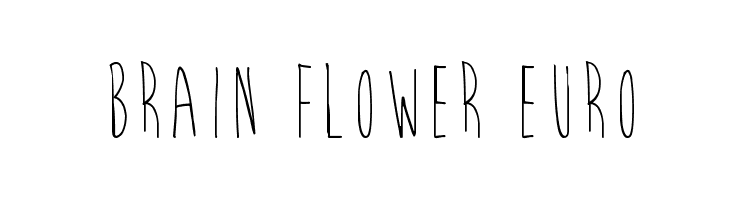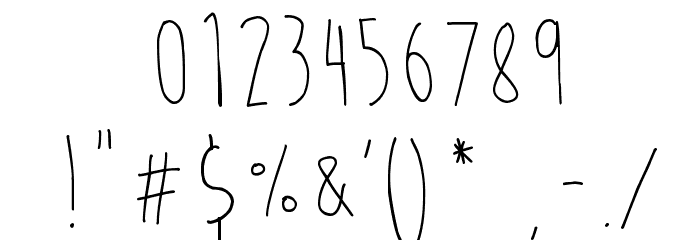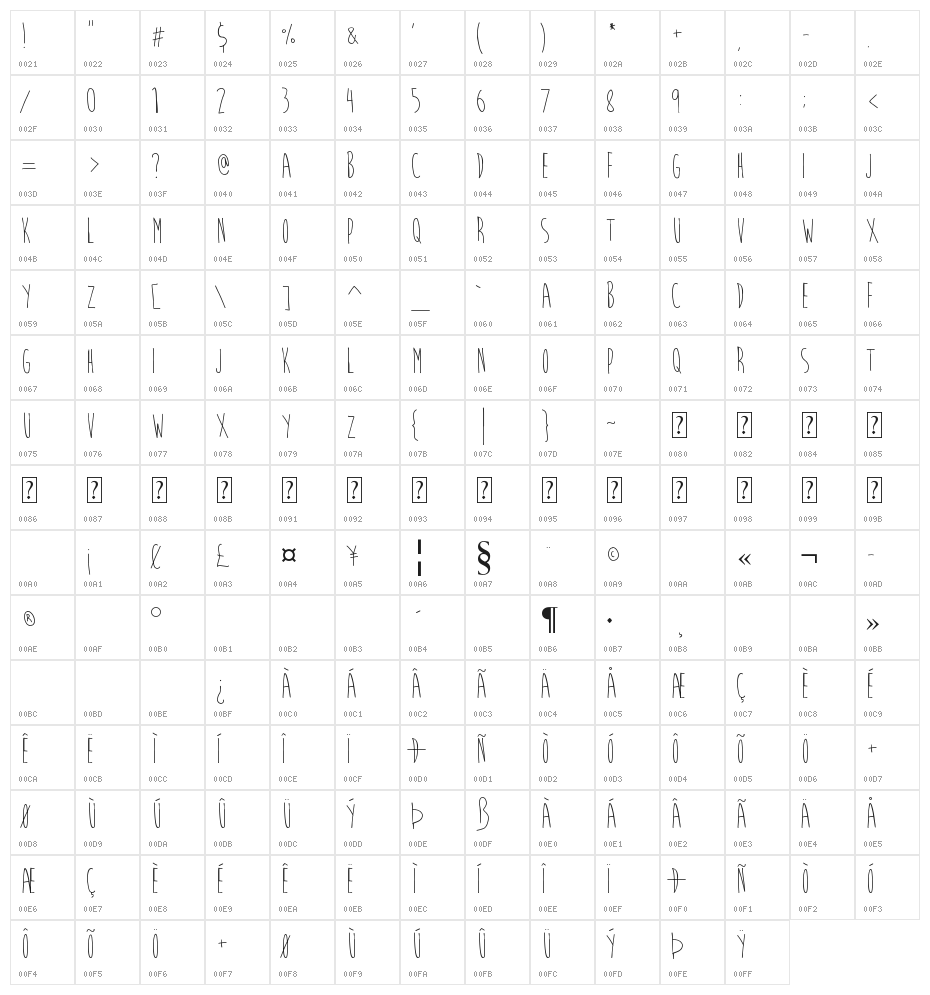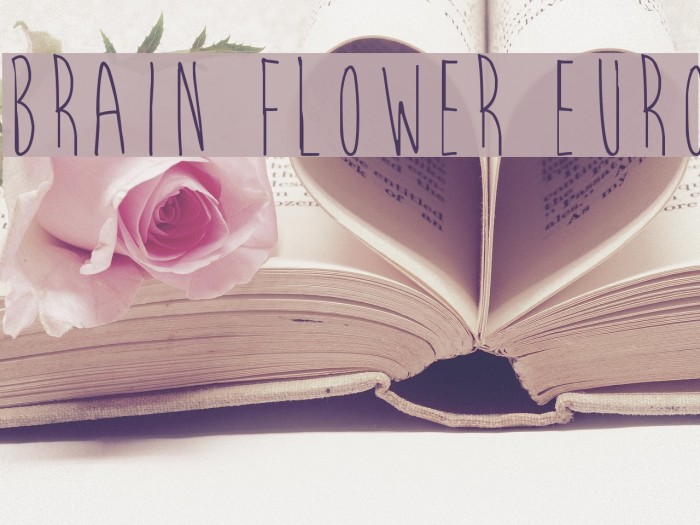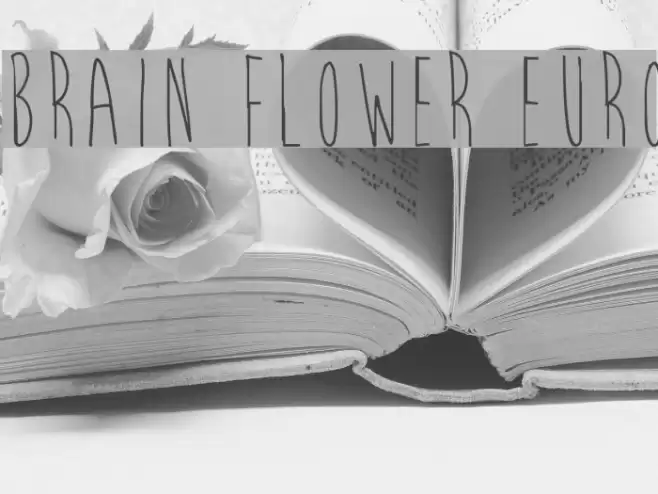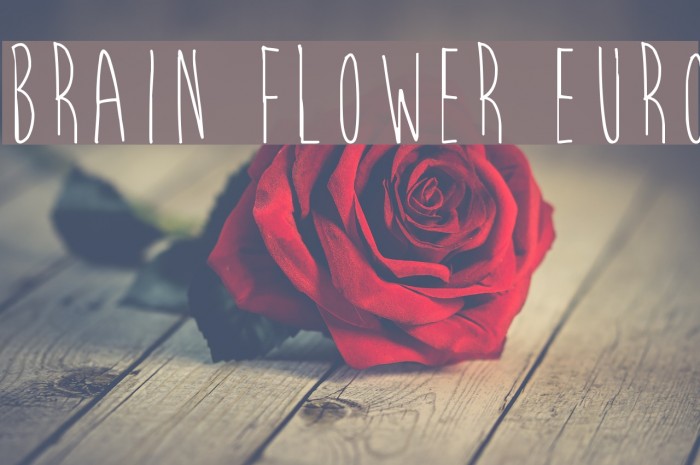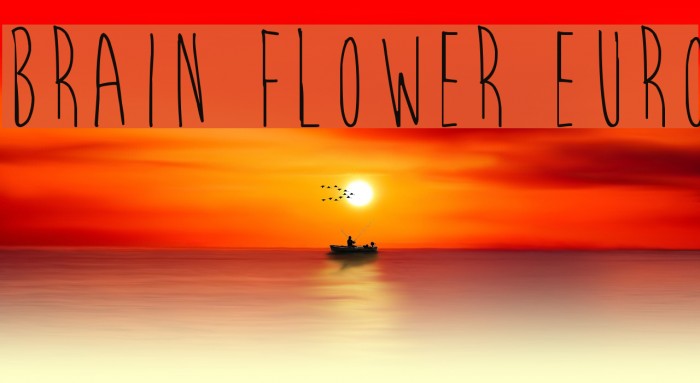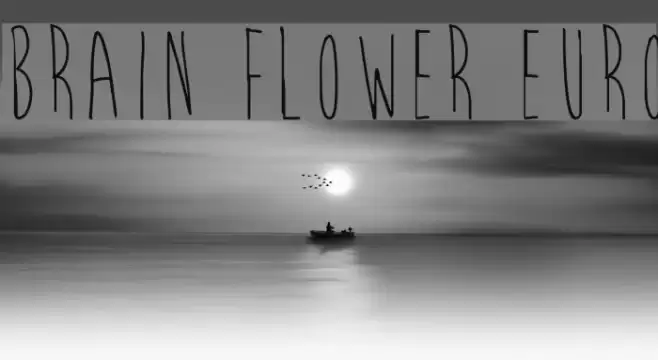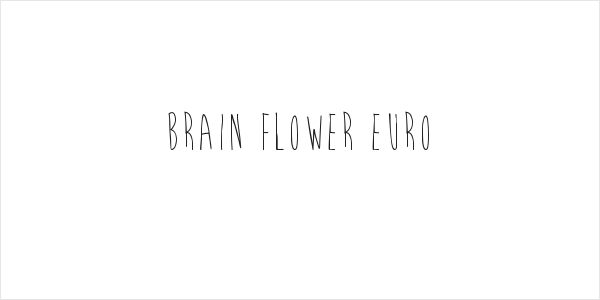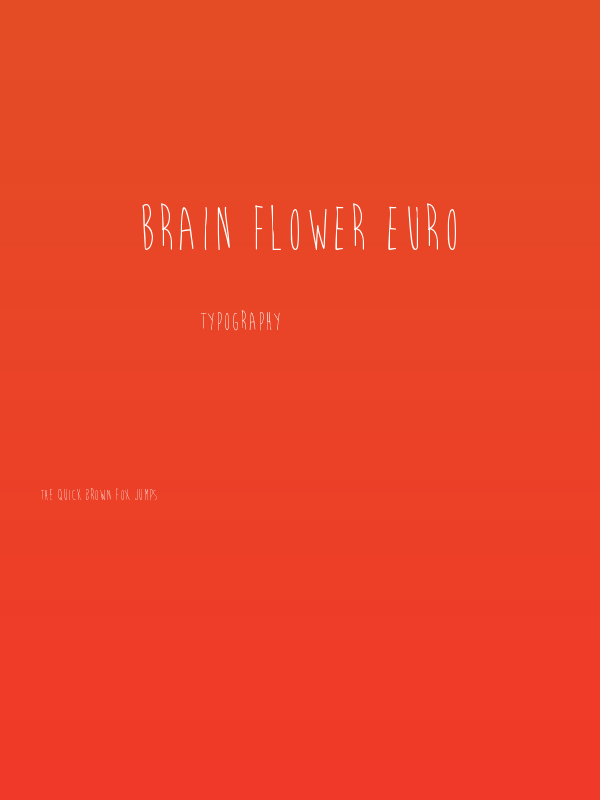
Brain Flower Euro Font
Brain Flower Euro Description
This font features a tall and narrow design with a handwritten aesthetic. The characters are elongated, giving a sense of elegance and modernity. The strokes are consistent in width, providing a clean and minimalist look. The uppercase and lowercase letters maintain a uniform style, while the numbers and special characters complement the overall design. The font's simplicity and clarity make it versatile for various applications.
Use CaseLogos, Headlines, Invitations
Proposed ProjectsIdeal for projects such as wedding invitations, greeting cards, personal branding, and minimalist design layouts.